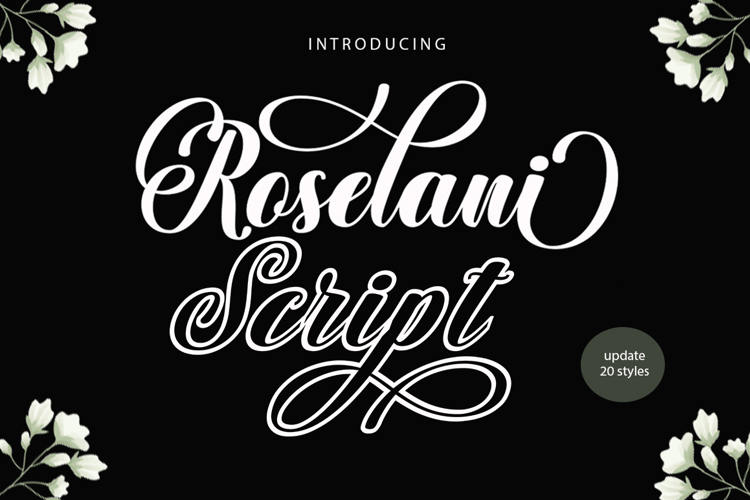
Roselani Script Font Duo
Roselani Script Font Duo is an elegant handwritten font duo designed to bring charm, warmth, and sophistication to any creative project. Now available in 20 carefully crafted styles, this versatile family offers plenty of options for creating beautiful and expressive typography. PUA encoded for easy access, all glyphs, alternates, ligatures, and swashes are readily available in compatible design software.
Roselani Script Font Duo is perfect for wedding invitations, thank you cards, greeting cards, quotes, branding, logos, business cards, social media graphics, packaging, posters, magazines, and many other design projects. Inspired by the natural flow of ink and watercolor lettering, it includes stylish beginning and ending swashes, alternates, ligatures, and multilingual support, making it an excellent choice for designers seeking elegant and versatile typography.